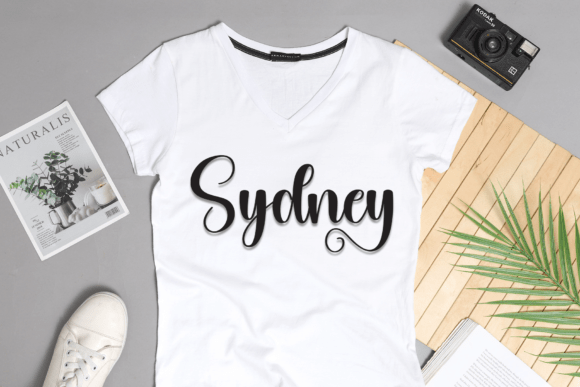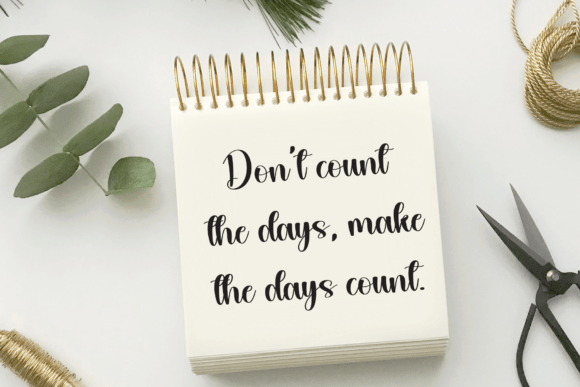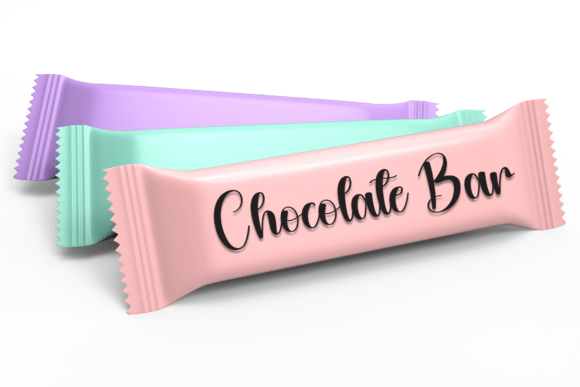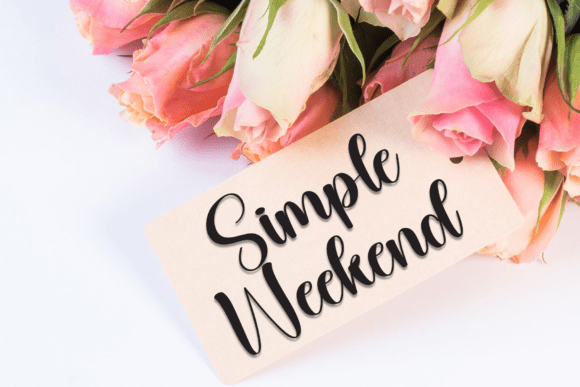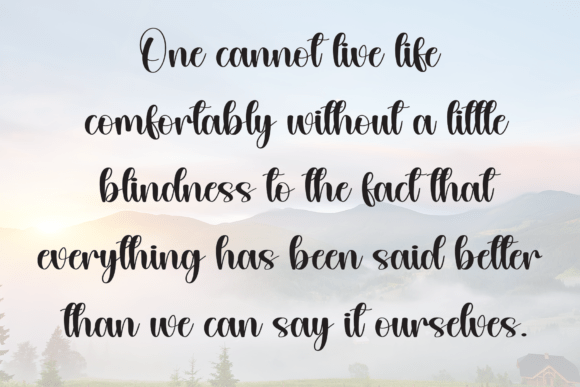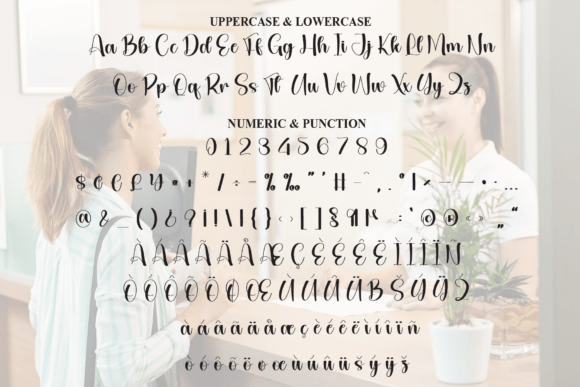
Introducing Amstay Font: Elevate Your Designs with Elegance and Playfulness
In the world of typography, fonts play a crucial role in conveying the tone and personality of a design. For designers and crafters seeking a typeface that embodies both modern sophistication and a touch of playfulness, Amstay Font is an exceptional choice. This stylish handwritten script font is designed to bring a personal feel to any project, making it ideal for a wide range of applications, from logos and packaging to invitations and more.
The Unique Charm of Amstay Font
Amstay Font stands out with its fluid strokes and charming curves, which work harmoniously to create a sense of warmth and elegance. The font’s modern design ensures it remains versatile, suitable for both digital and print media. Its unique blend of sophistication and playfulness allows designers to add a personal touch to their creations, making each project memorable and impactful.
Key Features of Amstay Font
- Handwritten Script Style: Amstay boasts a beautiful, handwritten script style that adds a personal and intimate feel to designs.
- Fluid Strokes and Curves: The font’s fluidity and charming curves contribute to its elegance and readability.
- Modern Elegance: With its clean and modern aesthetic, Amstay is perfect for designs that require a touch of sophistication.
- Playful Touch: The playful elements of the font ensure that designs remain approachable and engaging.
- Versatility: Amstay Font is highly versatile, making it suitable for a variety of design projects including logos, branding, packaging, invitations, and more.
Ideal Applications for Amstay Font
Amstay’s unique characteristics make it an excellent choice for several design applications:
- Logos and Branding: Create memorable and elegant logos that stand out with Amstay’s distinctive style.
- Packaging: Elevate product packaging with a font that combines sophistication and charm.
- Invitations: Make your invitations special with Amstay’s personal and elegant touch.
- Digital and Print Media: Whether for a website, social media, or print materials, Amstay Font adapts seamlessly across different mediums.
Why Choose Amstay Font?
In a sea of typefaces, Amstay Font offers a unique combination of qualities that make it an attractive choice for designers and crafters:
- Uniqueness: Stand out from the crowd with a font that is both stylish and distinctive.
- Readability: Despite its elegant and cursive nature, Amstay maintains high readability, ensuring your message is always clear.
- Emotional Connection: The personal feel of Amstay helps create an emotional connection with your audience, making your designs more impactful.
Amstay Font is a stylish and versatile typeface that can elevate any design project with its blend of modern elegance and playful charm. Its suitability for a wide range of applications, from professional branding to personal invitations, makes it a valuable addition to any designer’s toolkit. By choosing Amstay Font, designers can ensure their creations are not only visually appealing but also convey a sense of warmth and sophistication.
Whether you’re a seasoned designer or a crafting enthusiast, Amstay Font offers the perfect combination of style, versatility, and personal touch to bring your ideas to life. Explore the possibilities with Amstay Font and discover how it can transform your designs into memorable and impactful works of art.